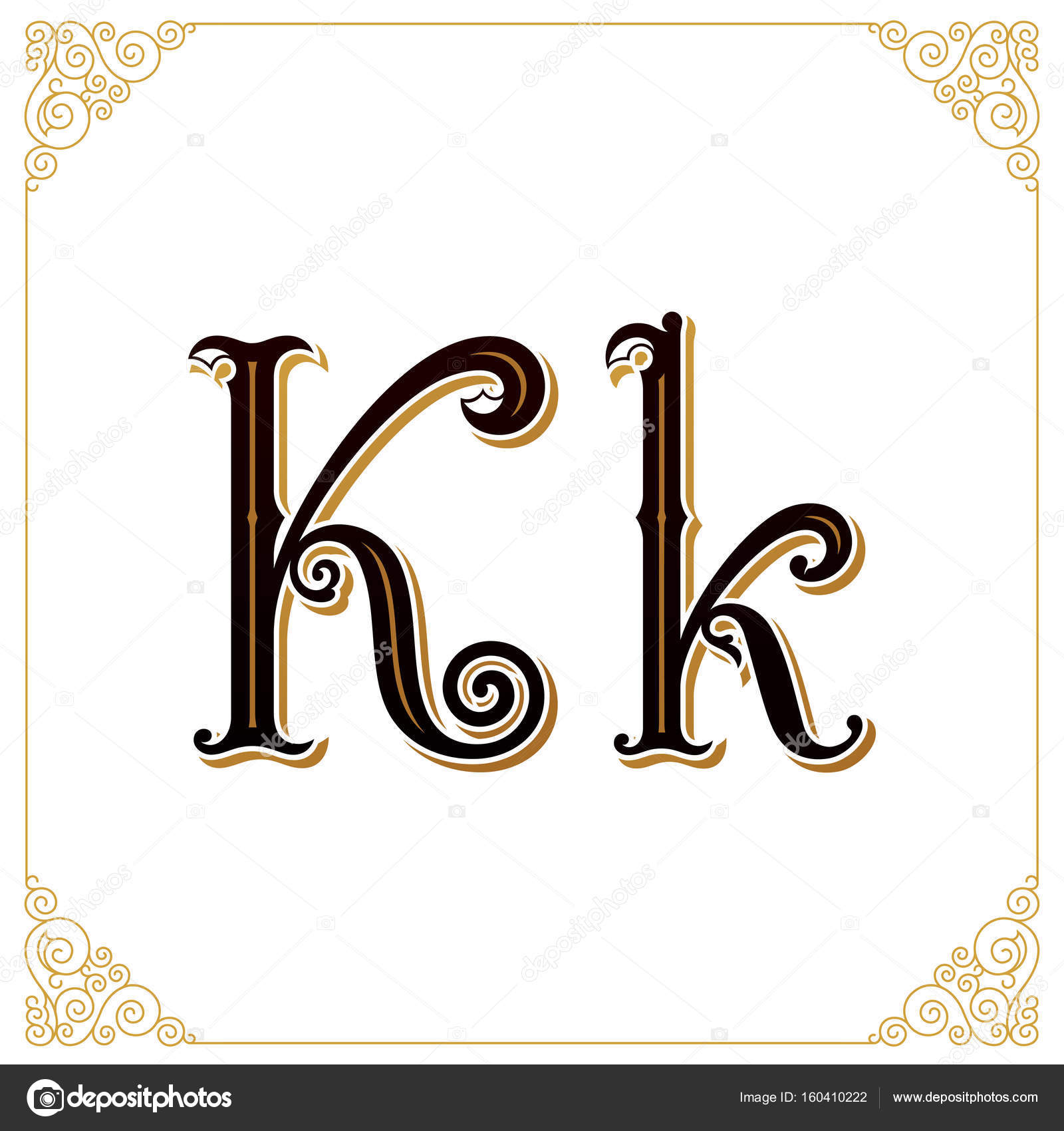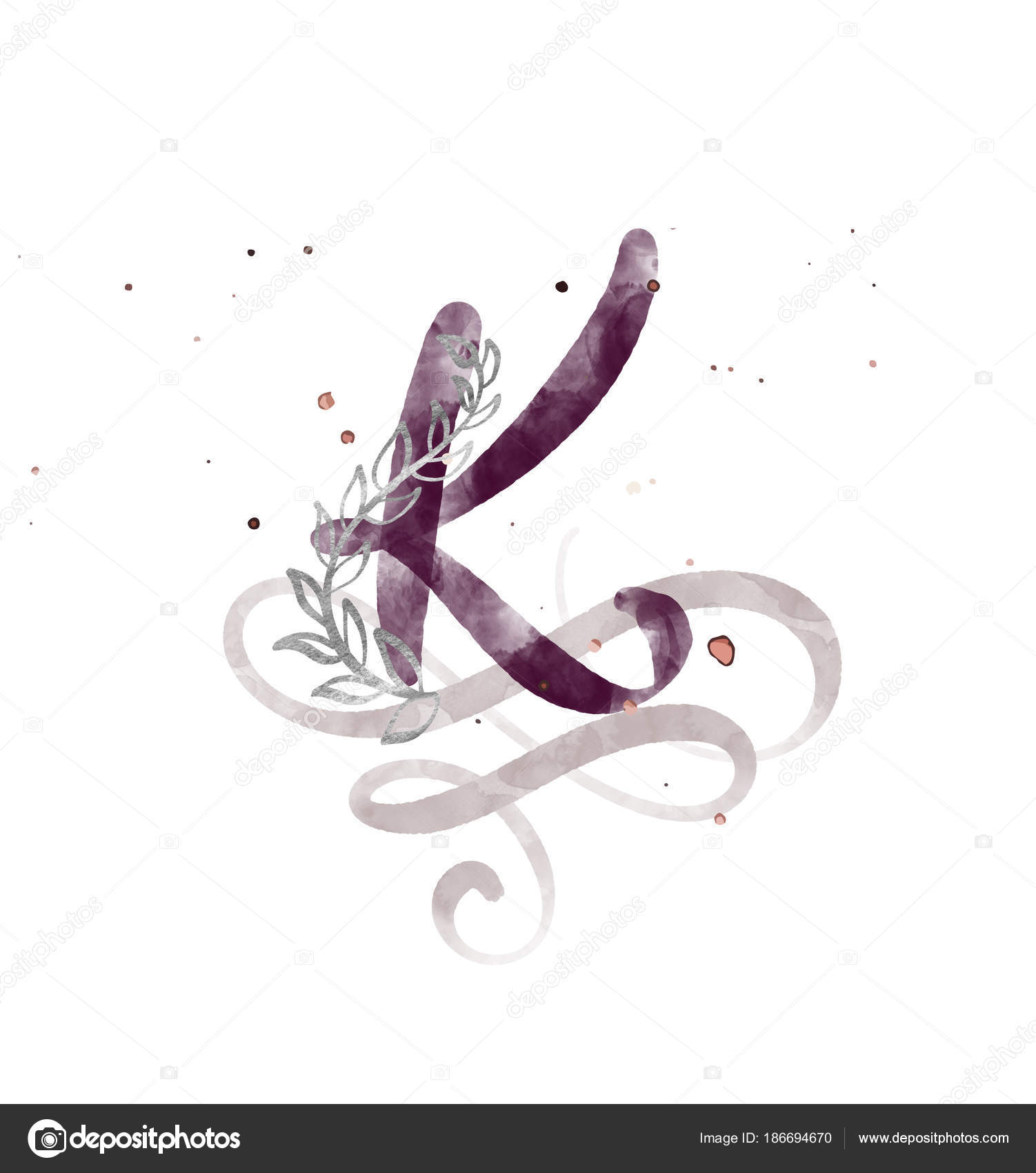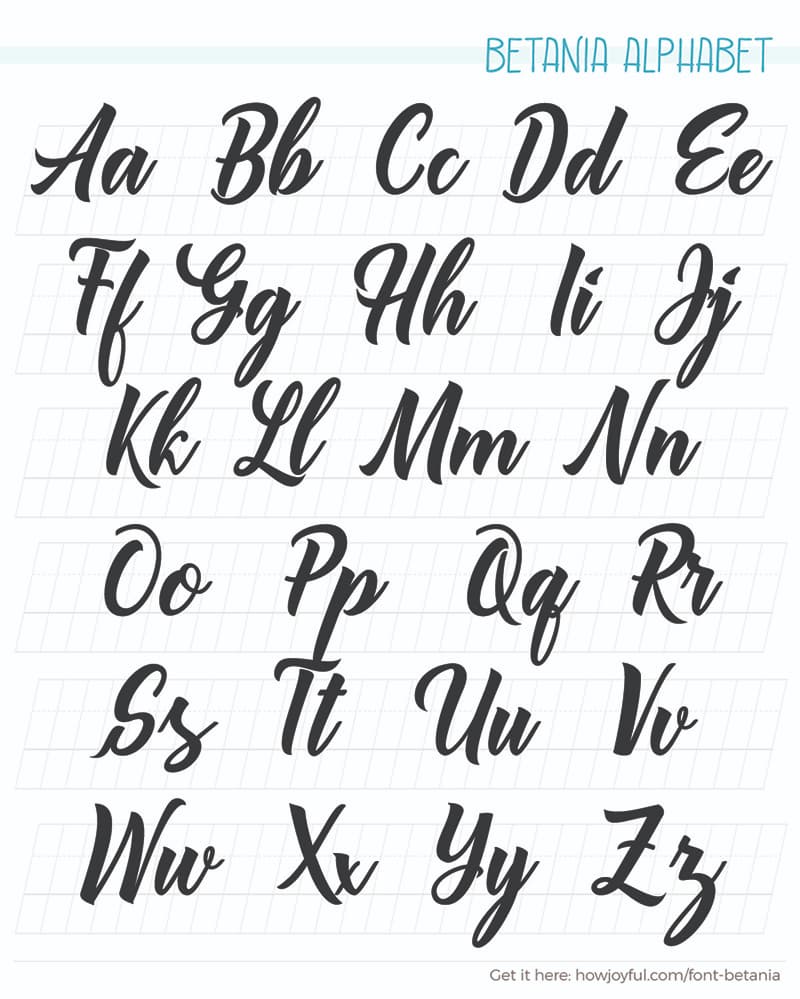
It usually involves a nibbed pen or brush.
Calligraphy k font style. Lamar pen is a stunning calligraphy font designed by Mirabeau Buonaparte Lamar is a fascinating style with words combining in an elegant and stylish way. Free Korean Fonts -. We want to share fonts created by Logic Type for free for personal use.
Cartoon Comic Groovy Old School Curly Western Eroded Distorted Destroy Horror. Nelson the scriptina pro is a beautiful font crafted to fit any design layout. Calligraphy Fonts Calligraphy is an artistic writing style where the pressure is varied to create thick and thin lines all in a single stroke.
Premium elegant capital letter k in a round frame vector. A lovely calligraphy font redesigned by Fredrick Nader and Roger S. Calligraphic watercolor letter K vector.
Calligraphy fonts are widely used in wedding event invitations original logo design religious art films TV etc. Burgues Script created by Alejandro Paul is a typical font family of calligraphy style. It was created specifically for the Korean language in the 15th century.
It is written using the hangul system. Korean 한국어 is the official and national language of North and South Korea. I recommend that you use this font if you want to create an oriental mood.
Fire Ice Decorative Typewriter Stencil Army Retro Initials Grid Various. There are a number of dialects of Korean which are largely mutually intelligible but there are relatively large differences between the standard forms used in North and South Korea due to decades of separation. Feb 16 2020 - Letter K in the Gothic style.
Vintage set capital letter k for monograms and vector. Calligraphy lettering script font k set han vector. The strokes are organized and giving a sense of retro feel to it.
These fancy letters are symbols that exist in the unicode standard but you cant. According to the designer the font is an ode to the late 19 th century American calligrapher Louis Madarasz known as the most skillful penman the world has ever known. The writing is readable but is usually extravagant and embellished with flourishes.